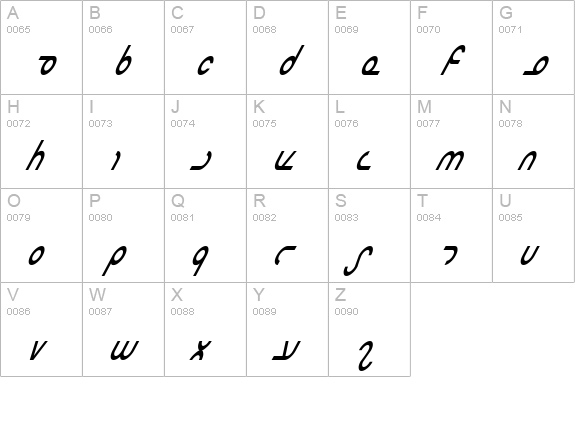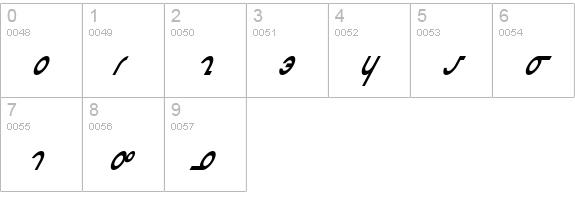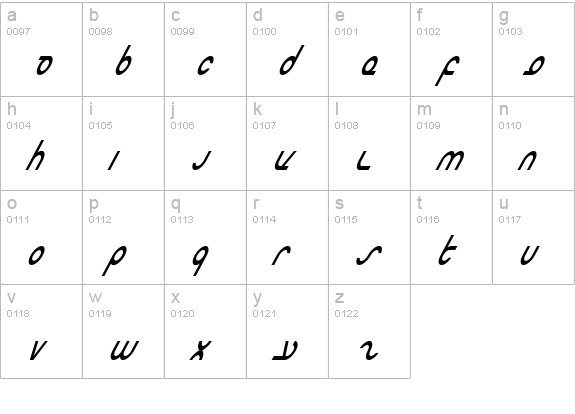
Masterdom Condensed Italic Font Details
Masterdom Condensed Italic is a distinctive, condensed-width, italic variant in the Masterdom typeface family \xE2\x80\x94 well suited to design and typography projects.
Masterdom Condensed Italic font is a sleek and sophisticated typeface that exudes elegance and modernity. Its slanted design adds a touch of dynamism and flair to any project, making it perfect for use in luxury branding, editorial design, and advertising. The condensed style allows for efficient use of space while maintaining readability and visual impact. This font is not only visually striking but also versatile, suitable for a wide range of design applications. Whether you are crafting a magazine layout, designing a logo, or creating social media graphics, Masterdom Condensed Italic font will elevate your work to the next level. Best of all, this premium font is available for free download at FontsMarket.com. Now you can enjoy the sophistication and style of Masterdom Condensed Italic without any cost, making it a valuable addition to your font library. Don't miss out on this opportunity to enhance your design projects with this stunning typeface.